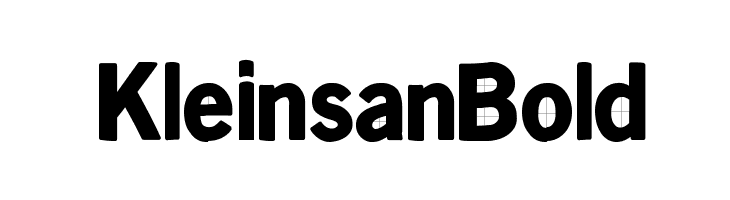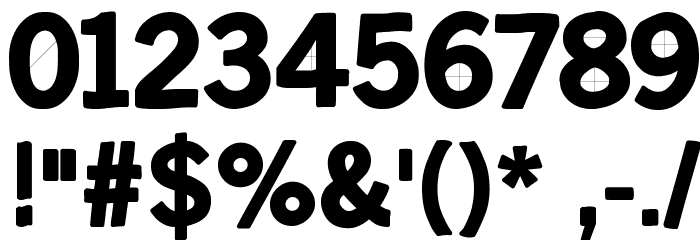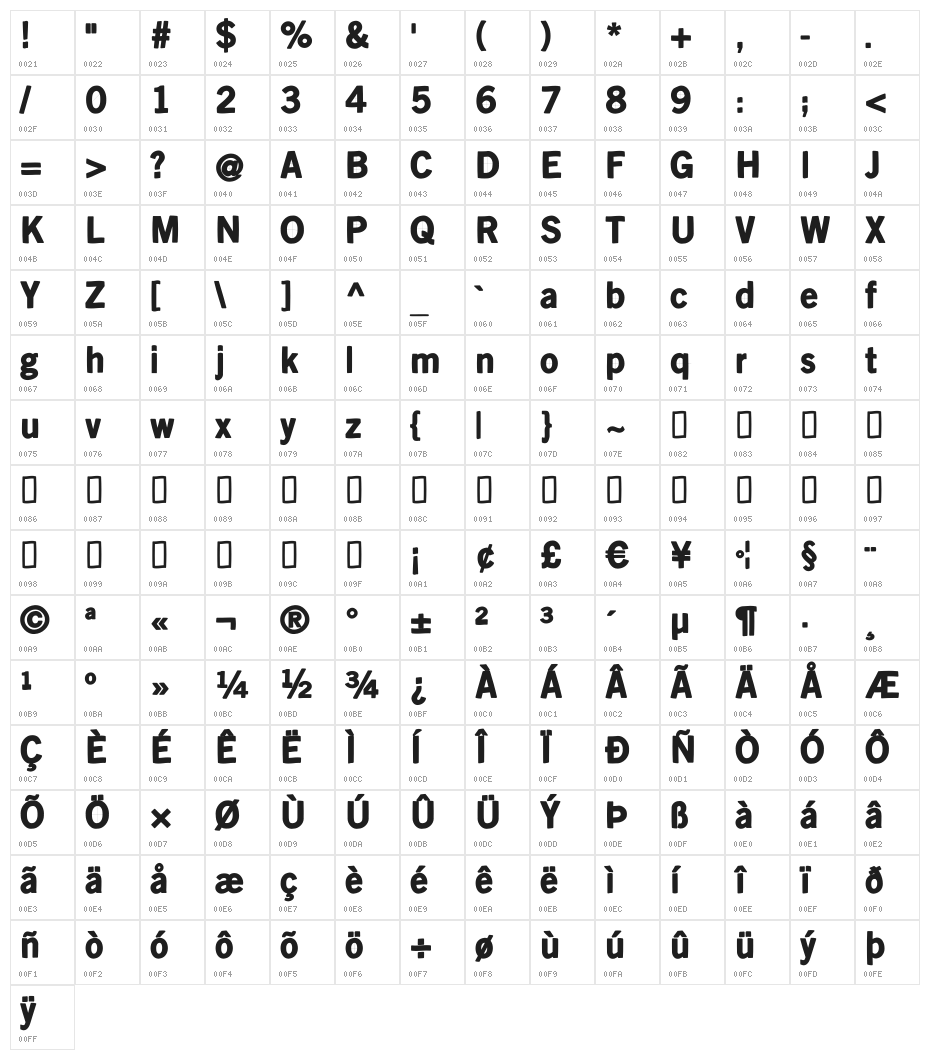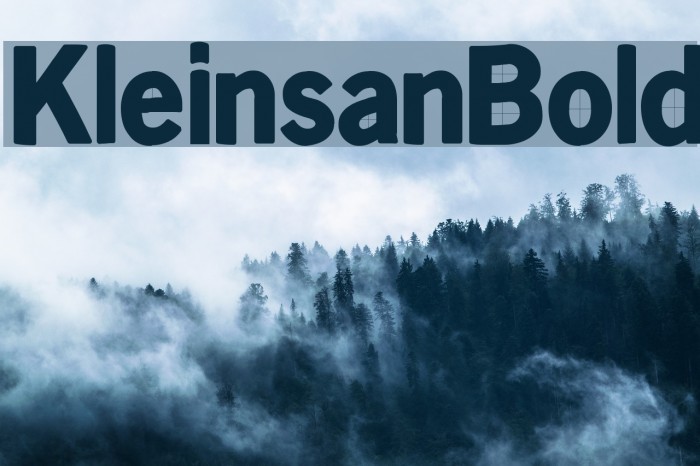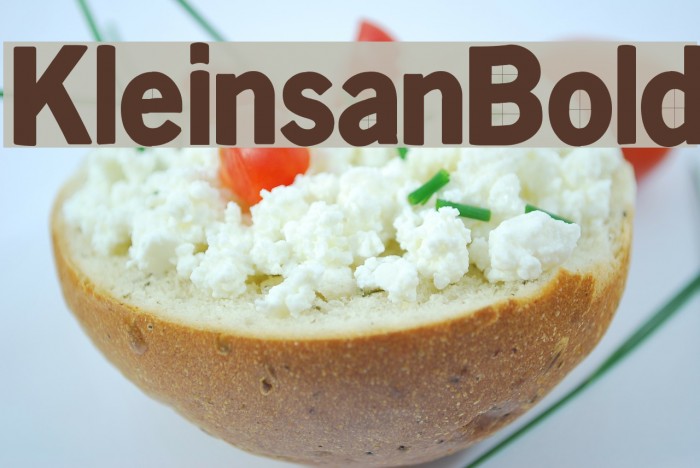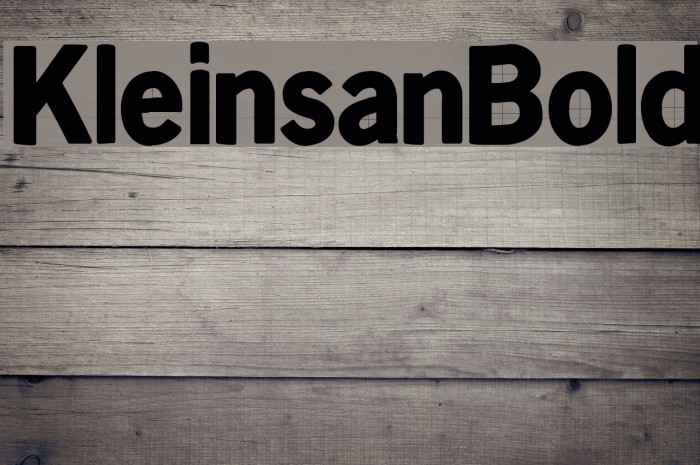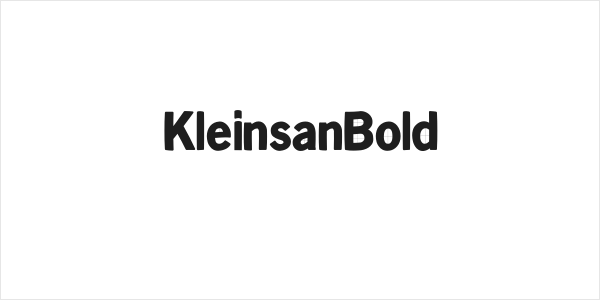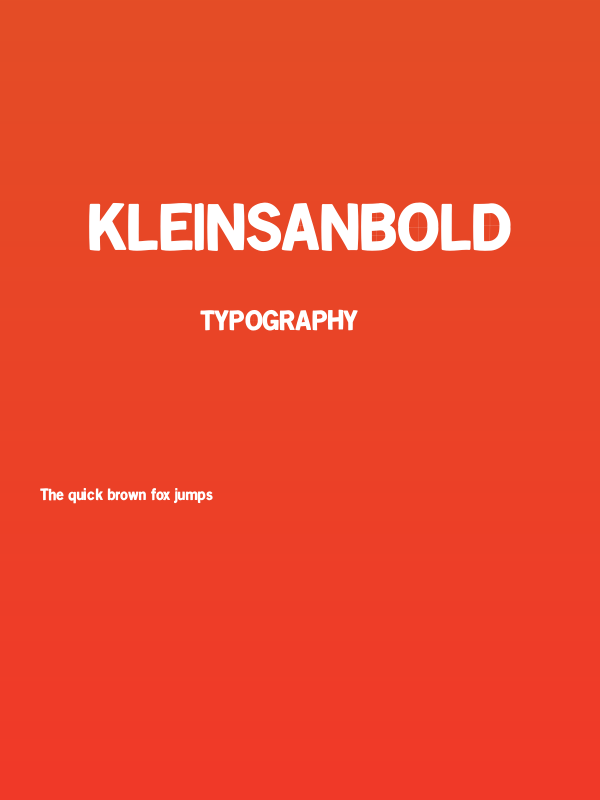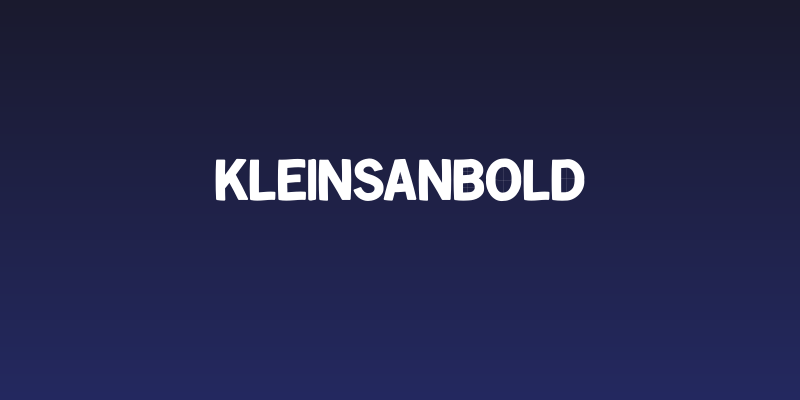
KleinsanBold Font
This font features bold, rounded characters with a strong presence, making it highly legible and impactful. The uppercase and lowercase letters maintain a consistent weight, contributing to a cohesive look. The numerals are clear and distinct, ensuring readability in various contexts. Special characters are well-defined, adding versatility to the font's usage. The overall design is modern and clean, suitable for a variety of applications where clarity and emphasis are needed.
A bold, rounded font with a modern and impactful style.
• Proposed Projects: Ideal for headlines, posters, branding materials, and advertising where a strong, clear message is essential.